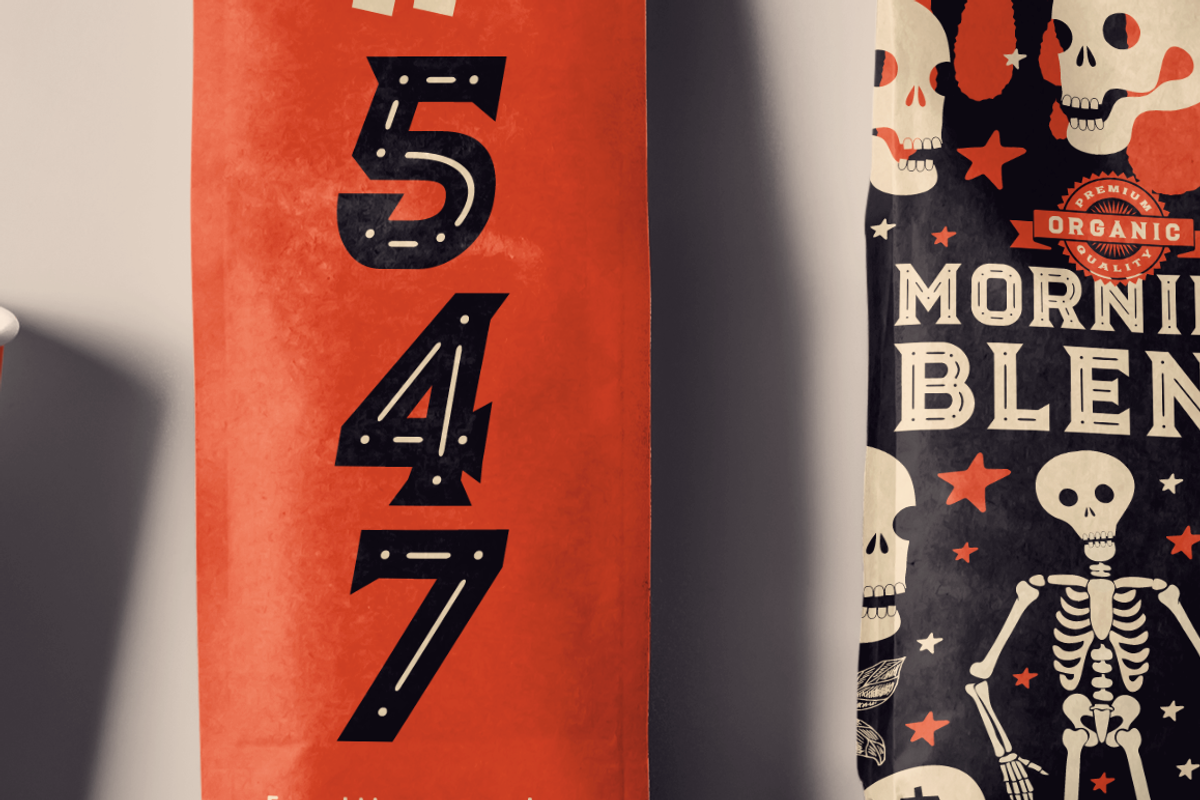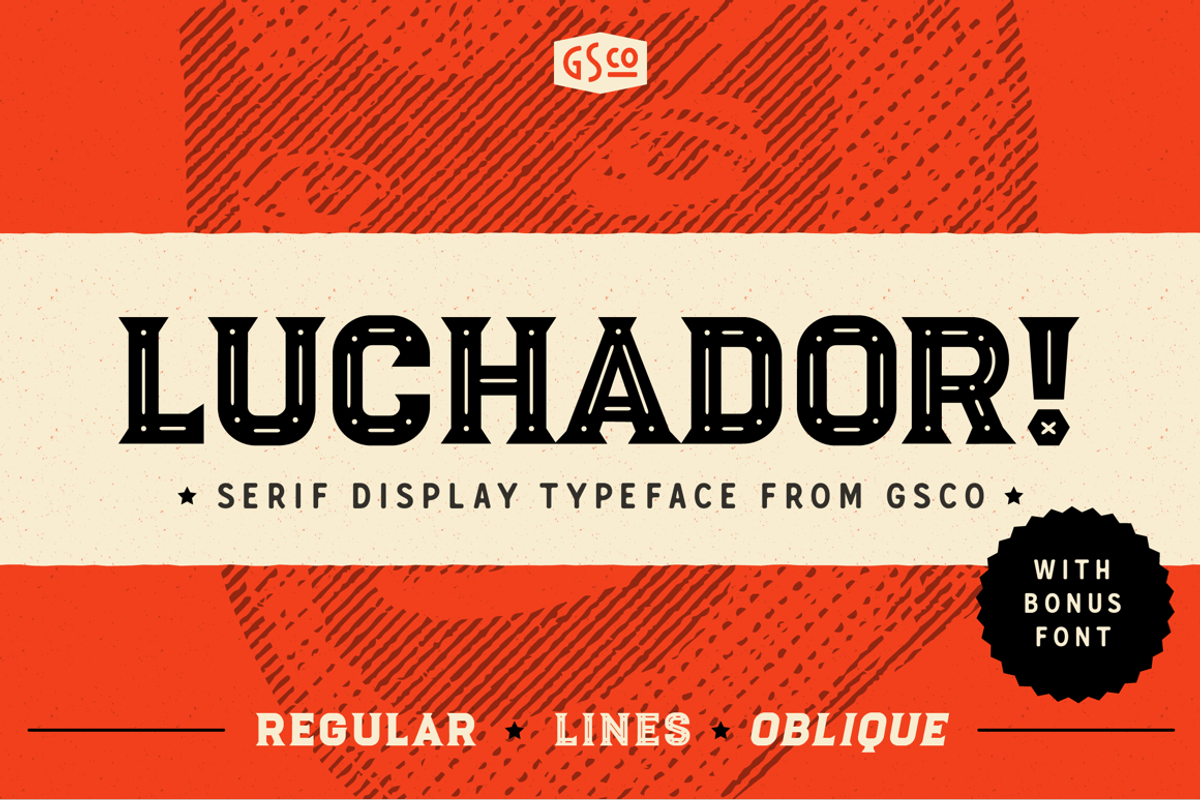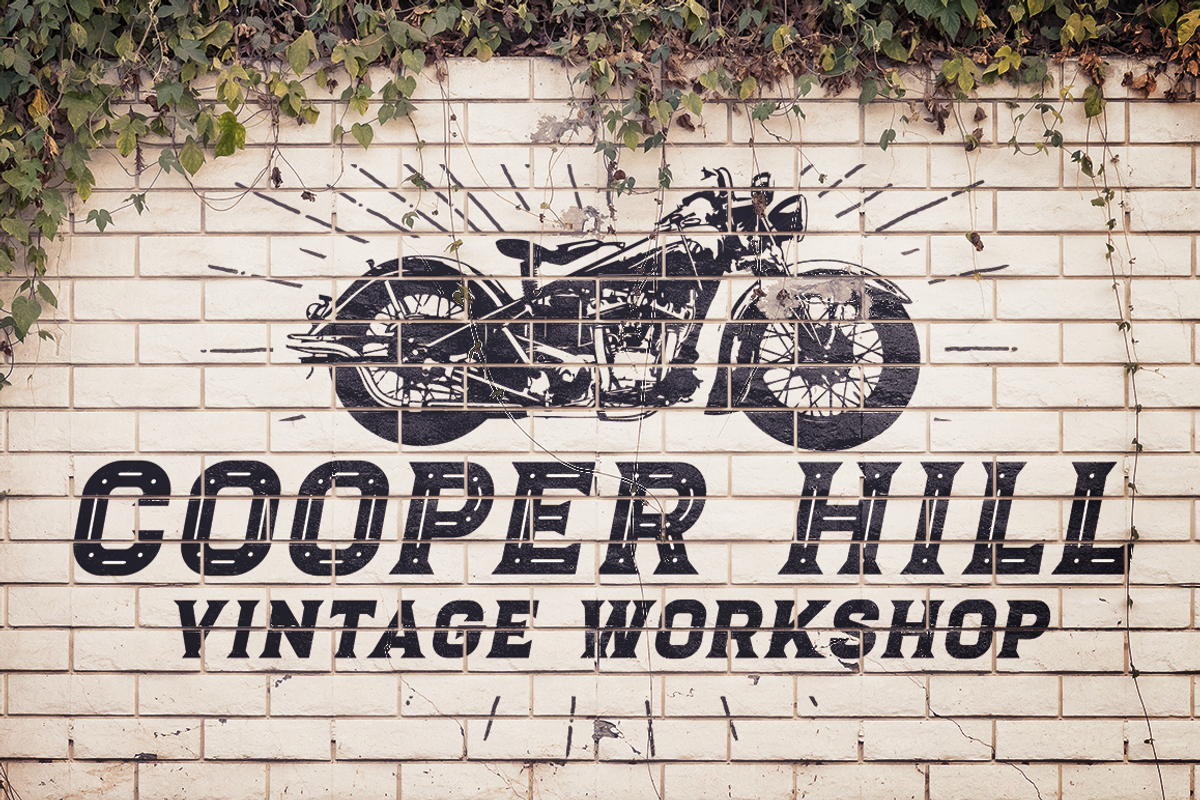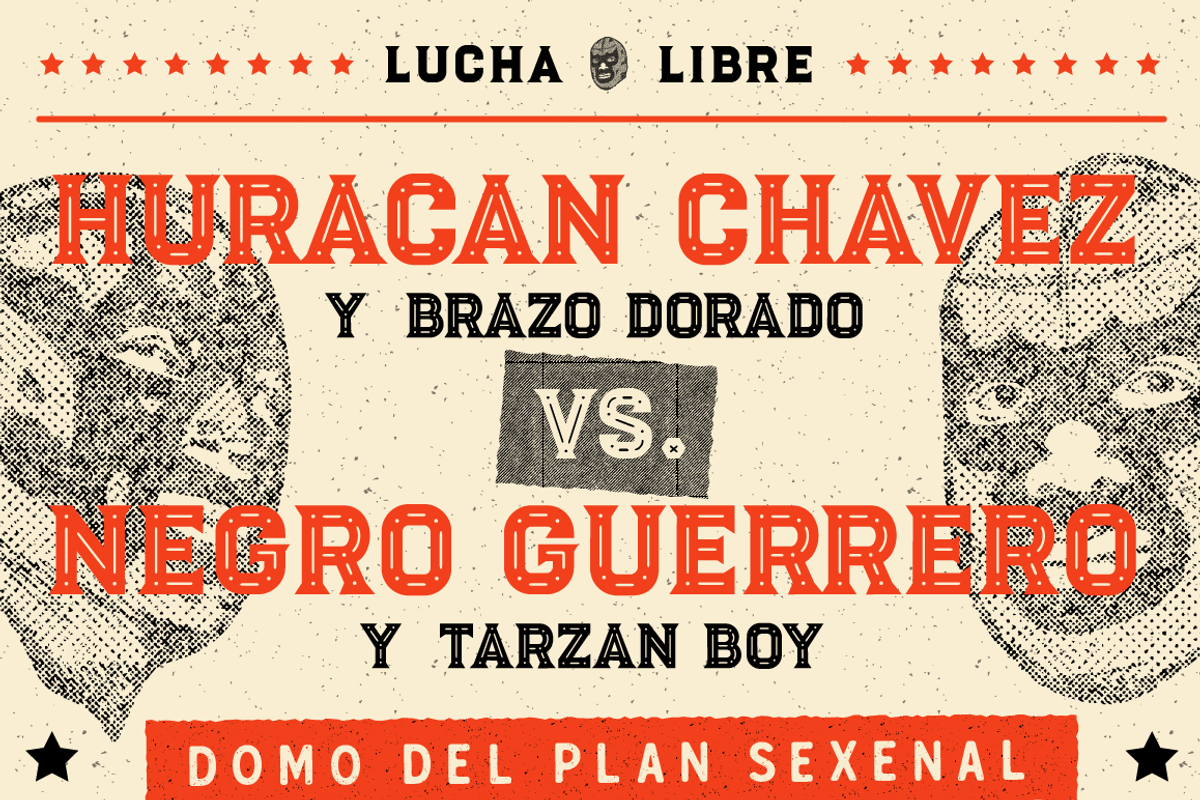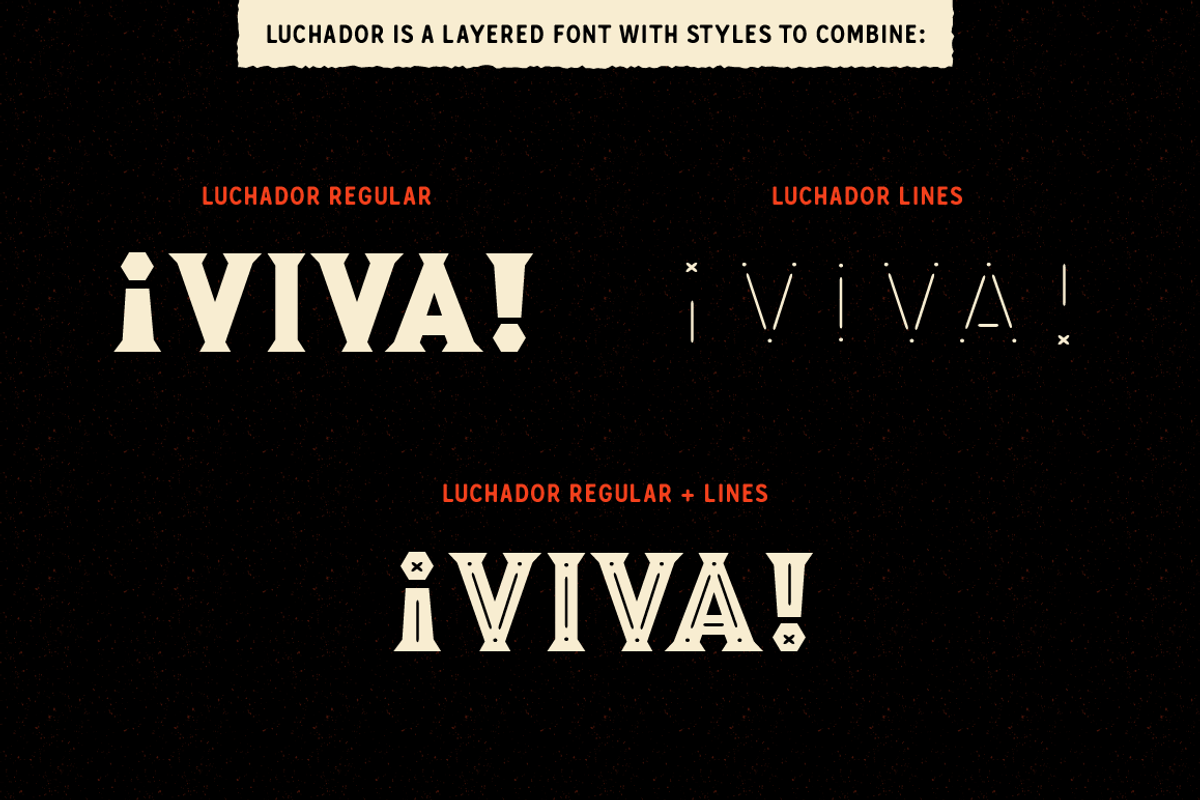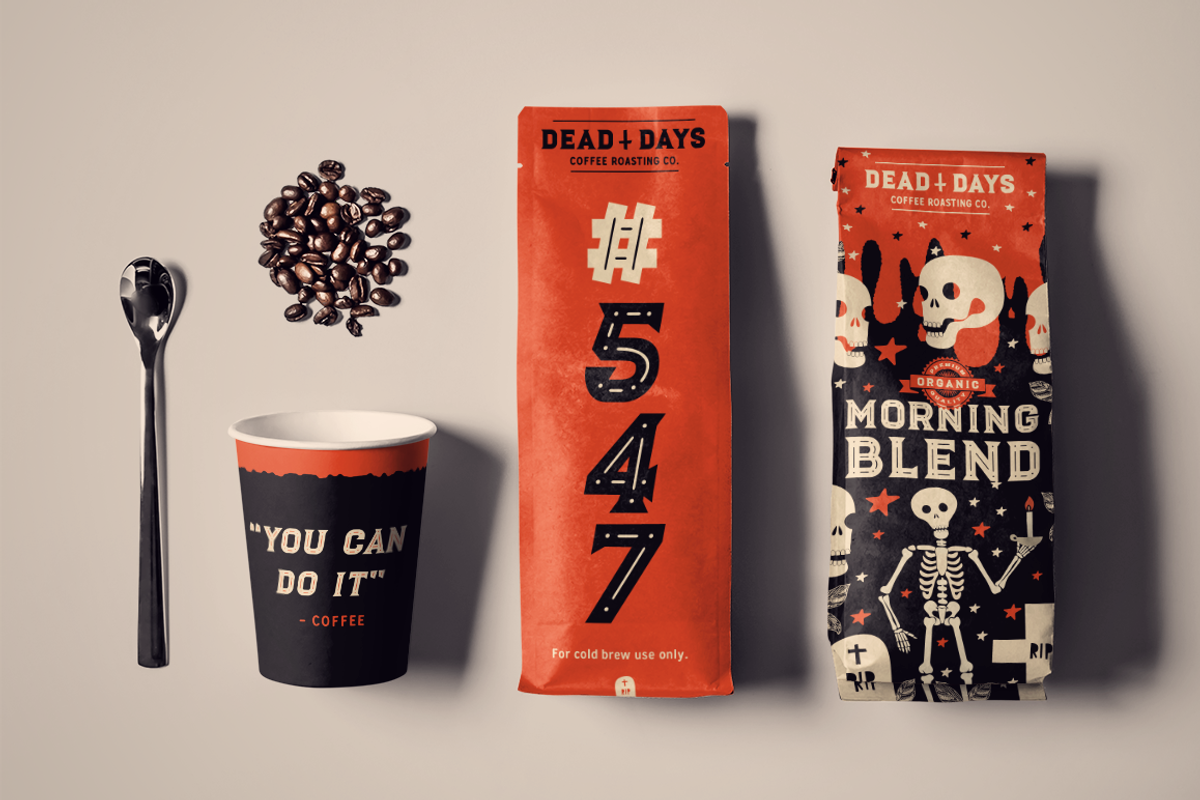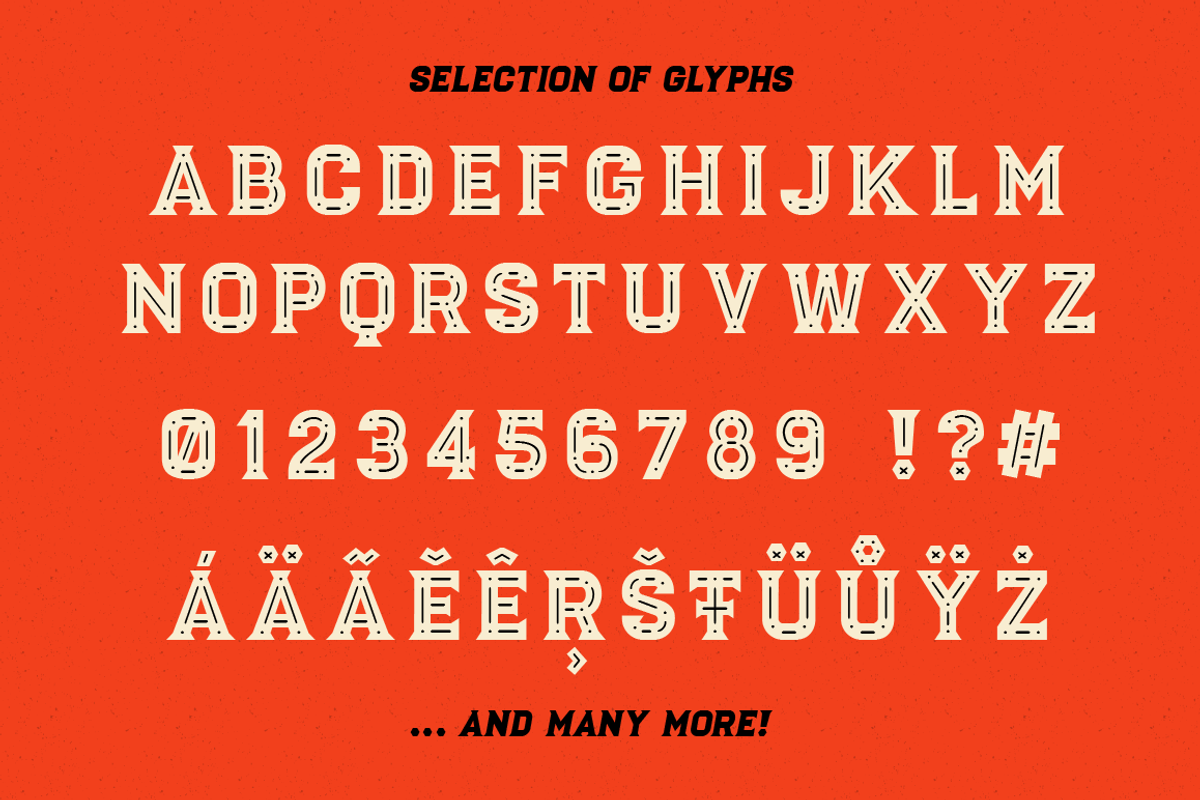
Luchador - Serif display typeface
Introducing Luchador! - A serif display typeface from Great Scott
Luchador is a serif display typeface in two styles with layered ornaments that will pack your next creative project full with weight, character and charisma like a mexican wrestler.
In this pack you'll find Luchador Regular and Luchador Oblique as well as an ornamental bonus - Luchador Lines. All styles have over 300+ glyphs and supports a great amount of international languages.